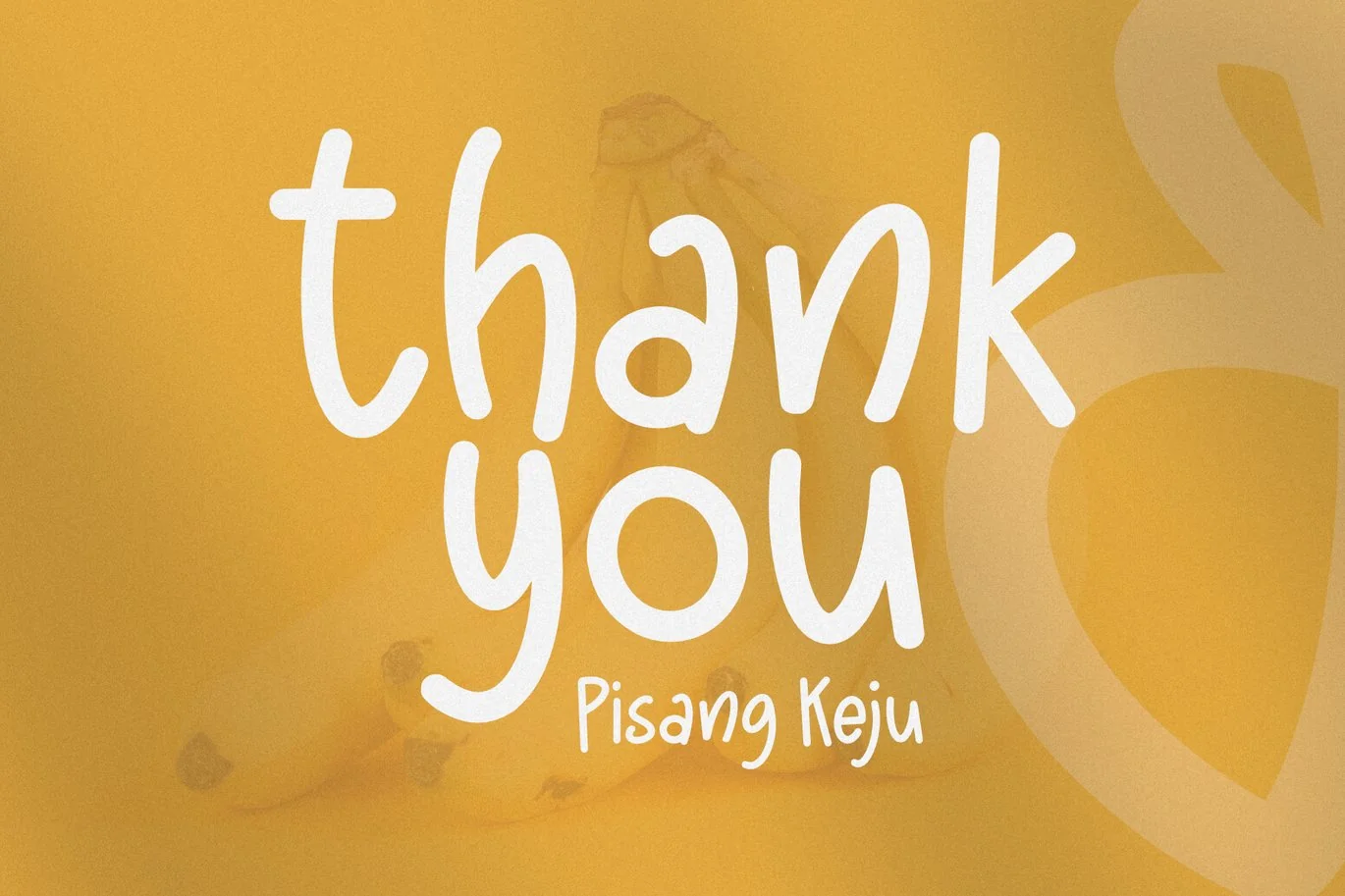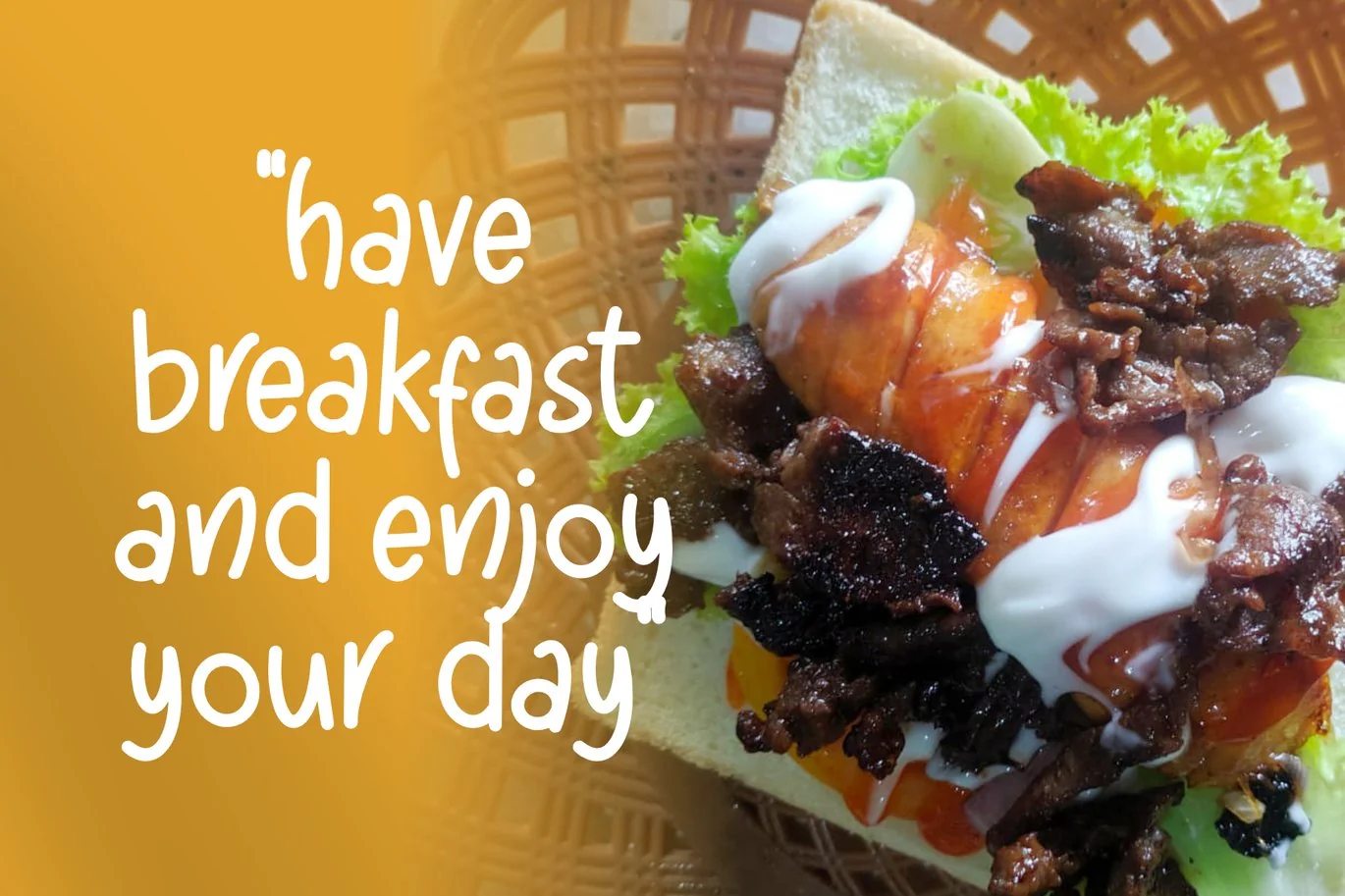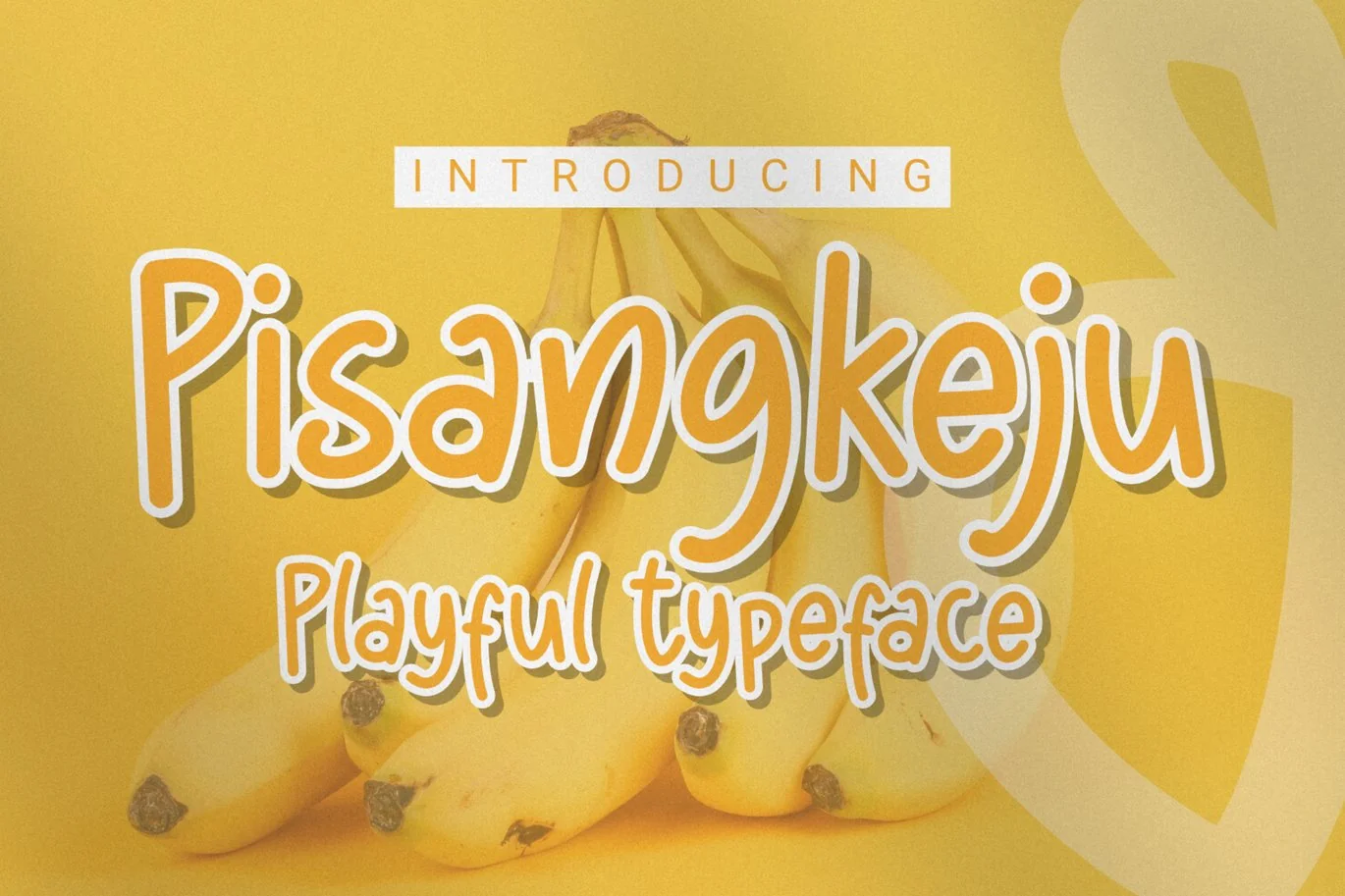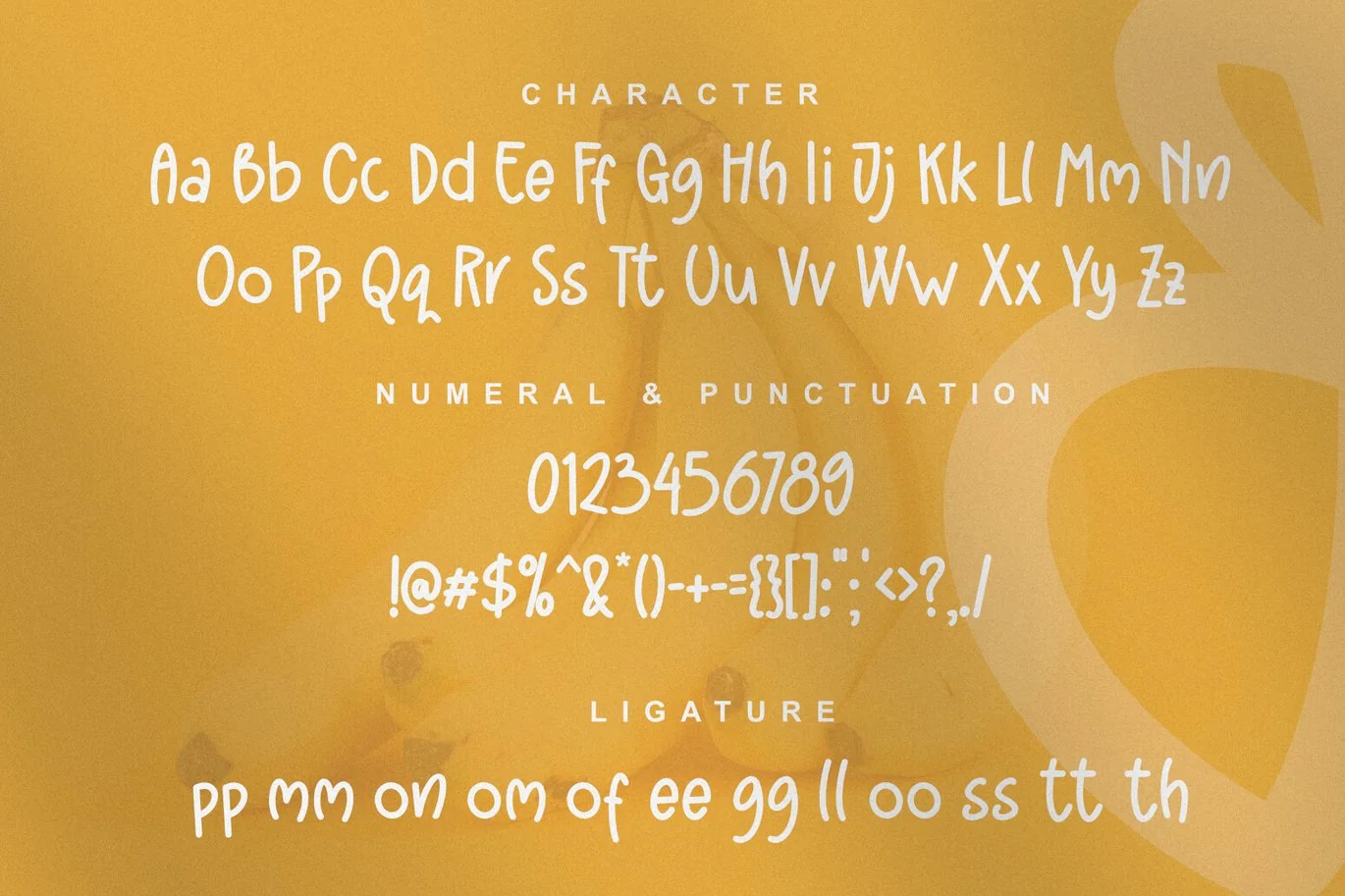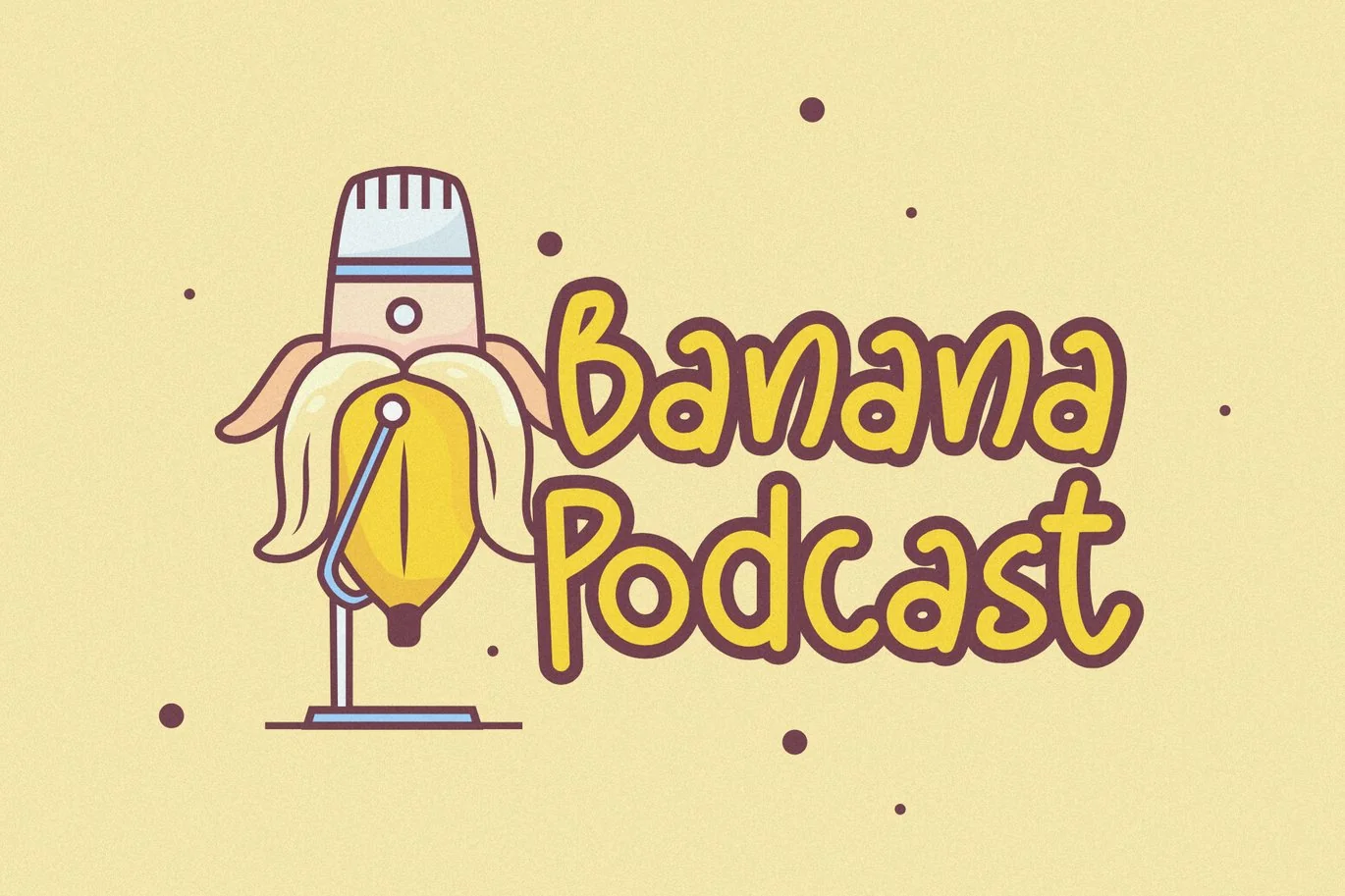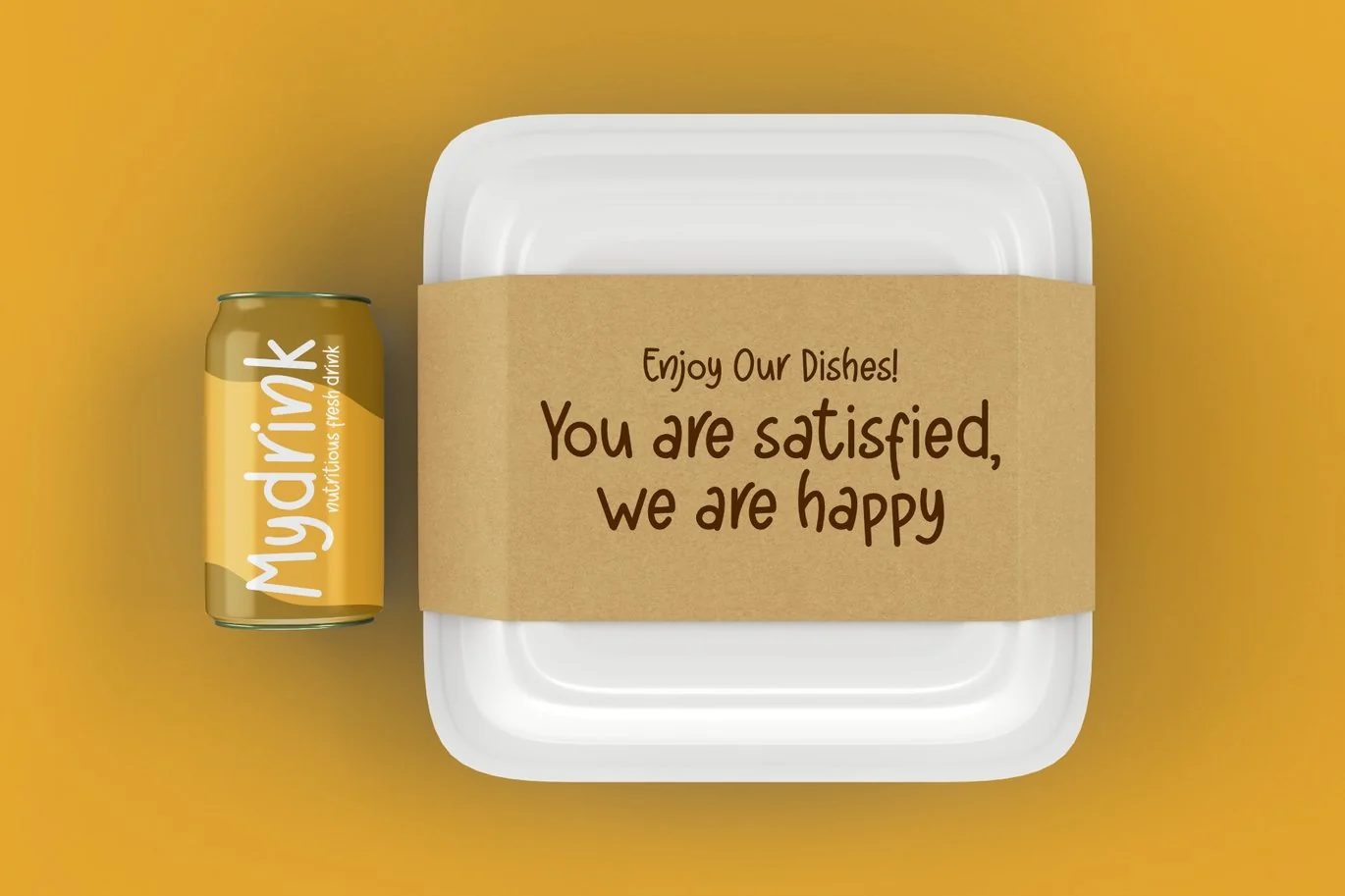
Pisangkeju Playful Cute Font
Pisangkeju – Playful Typeface is a casual font made for casual, fun, and informal designs so that it looks perfect with the projects you make. Pisangkeju Playful Cute Font
Pisangkeju is perfect for designs, logos, social media, brands, content, advertisements, product designs, quotes, product packaging, headers, posters, merchandise, and other designs. Pisangkeju Playful Cute Font